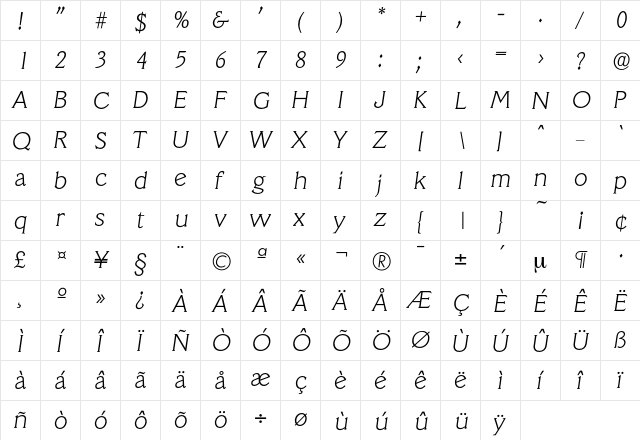
Veracruz-XlightIta Regular
Design Context for Veracruz-XlightIta Typeface
Veracruz-XlightIta is a composed and adaptable typeface that performs quietly and consistently across a wide range of design contexts. The delicate stroke weight brings airiness and refinement to layouts.